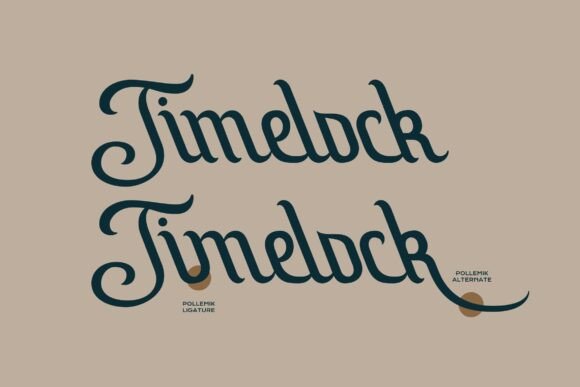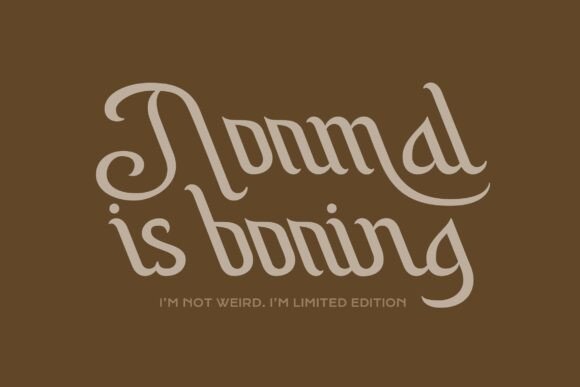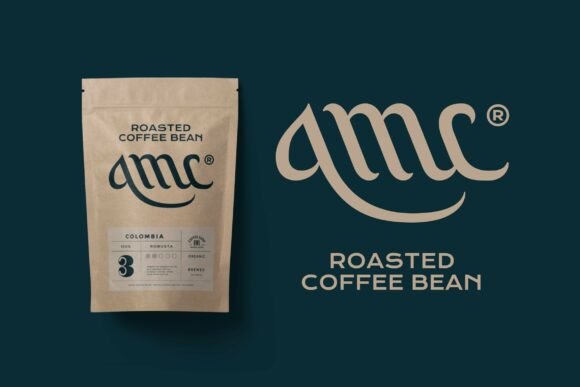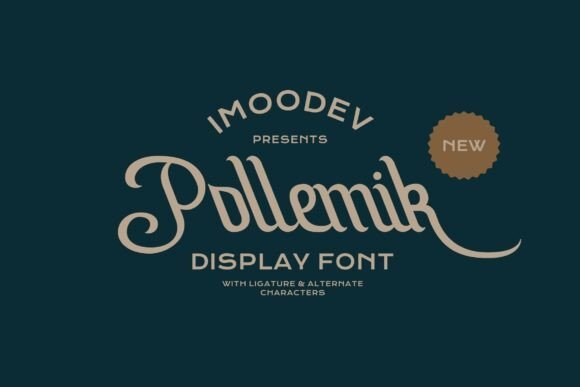
Introduction to Pollemik Font
Pollemik is an elegant vintage script font that effortlessly blends timeless sophistication with a modern, expressive flair.
Designed with sweeping swashes and elegant ligatures, this font elevates any project with a sense of artistry and sophistication Its graceful, flowing letterforms and high contrast strokes capture the essence of classic calligraphy, while its playful curves add a contemporary touch.